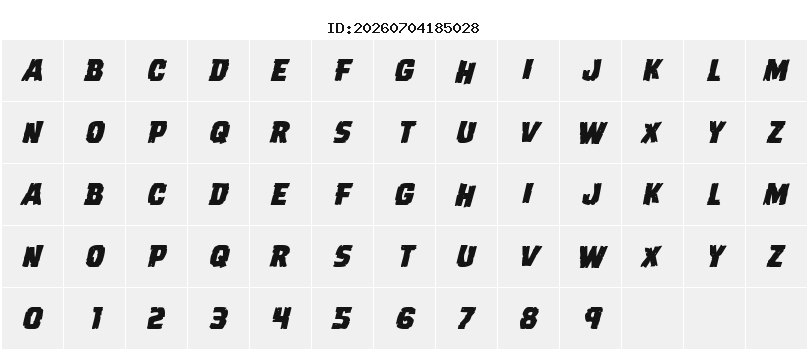
• Font Name: Dread Ringer Expanded Italic
• Font Style: Expanded Italic
• Full Font Name: Dread Ringer Expanded Italic
About Dread Ringer Expanded Italic.ttf
Dread Ringer Expanded Italic.ttf is a modern, elegant sans-serif font designed for ultimate readability and visual harmony. Perfect for branding, headlines, web design, and print materials.